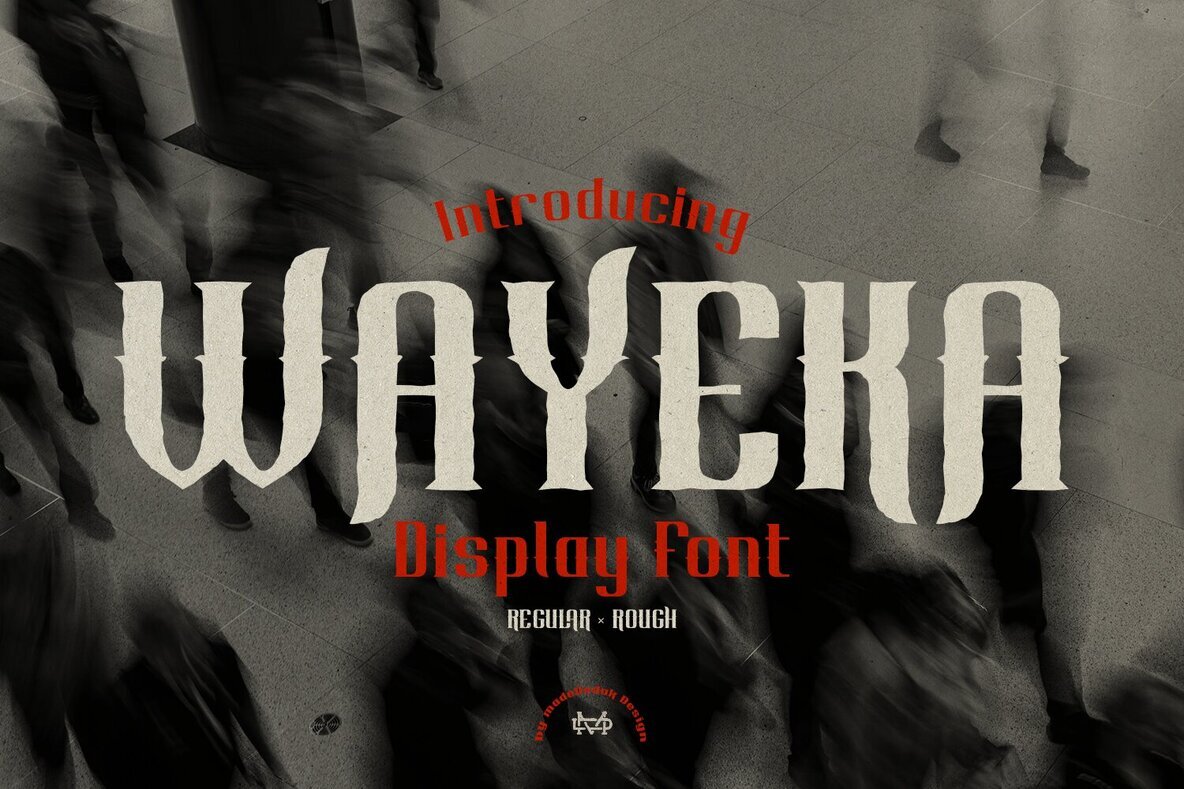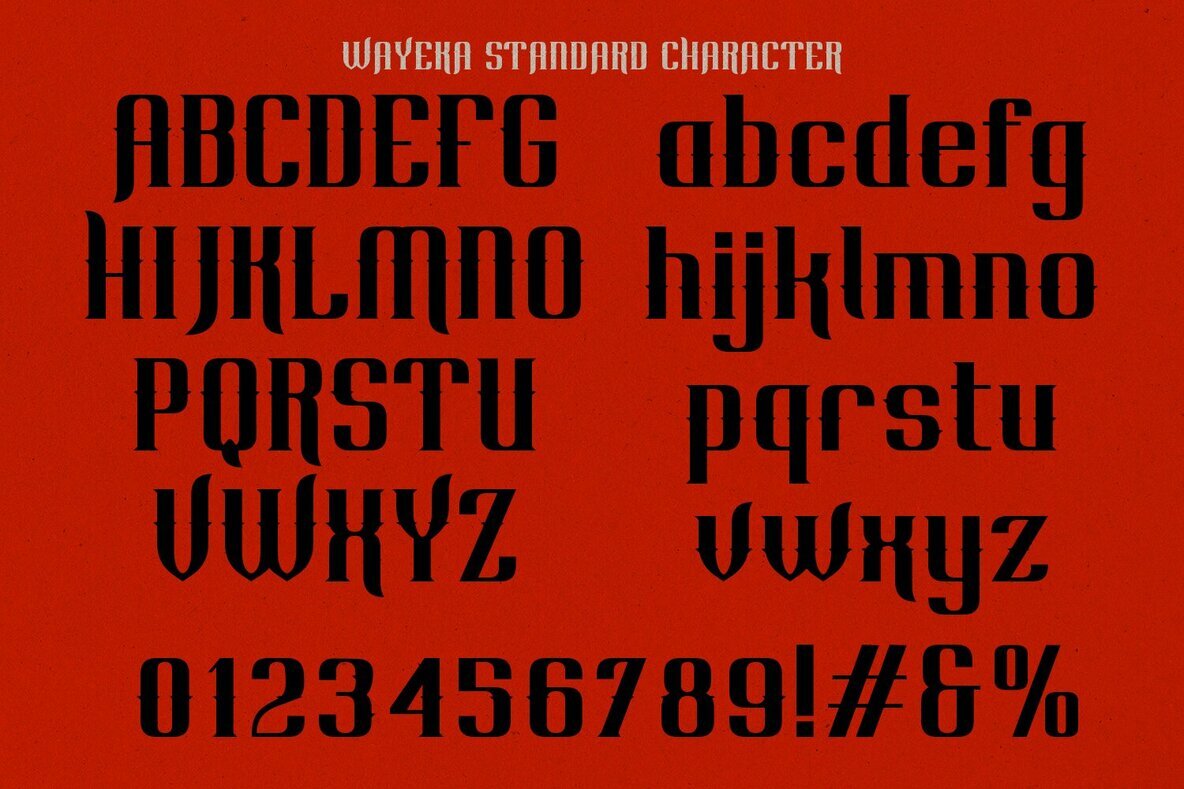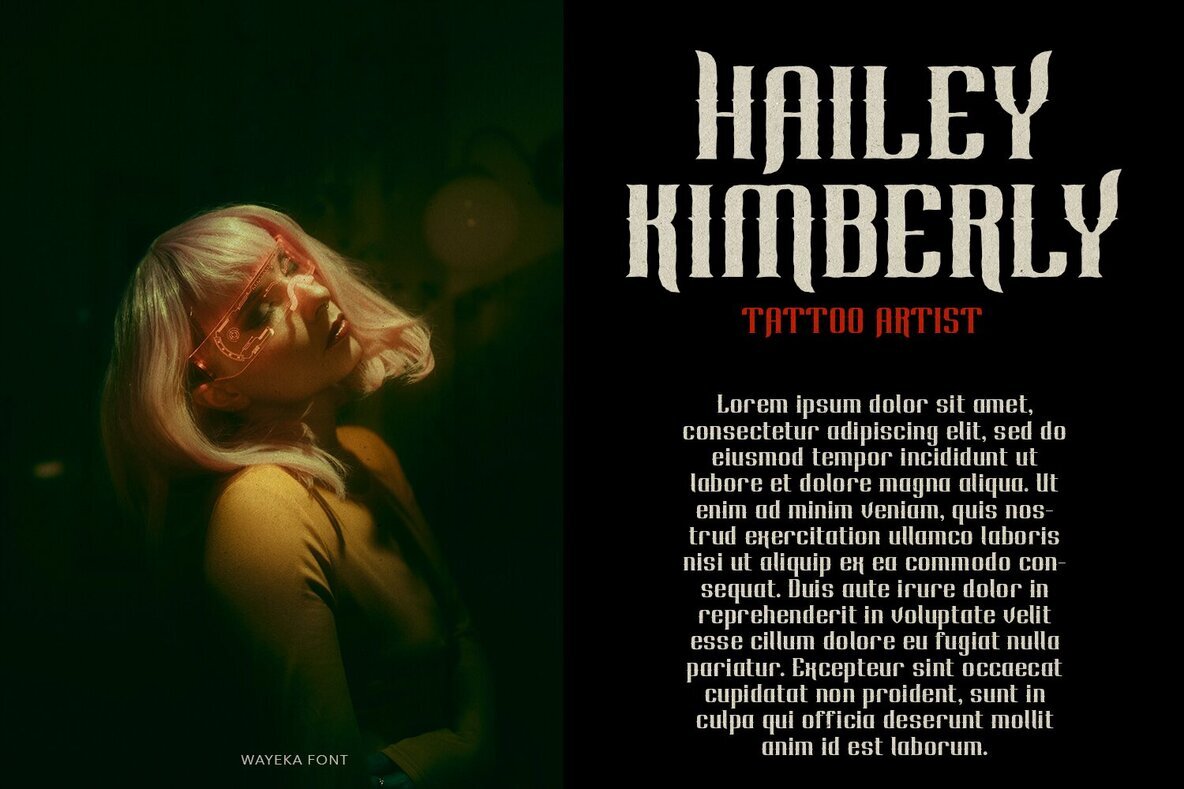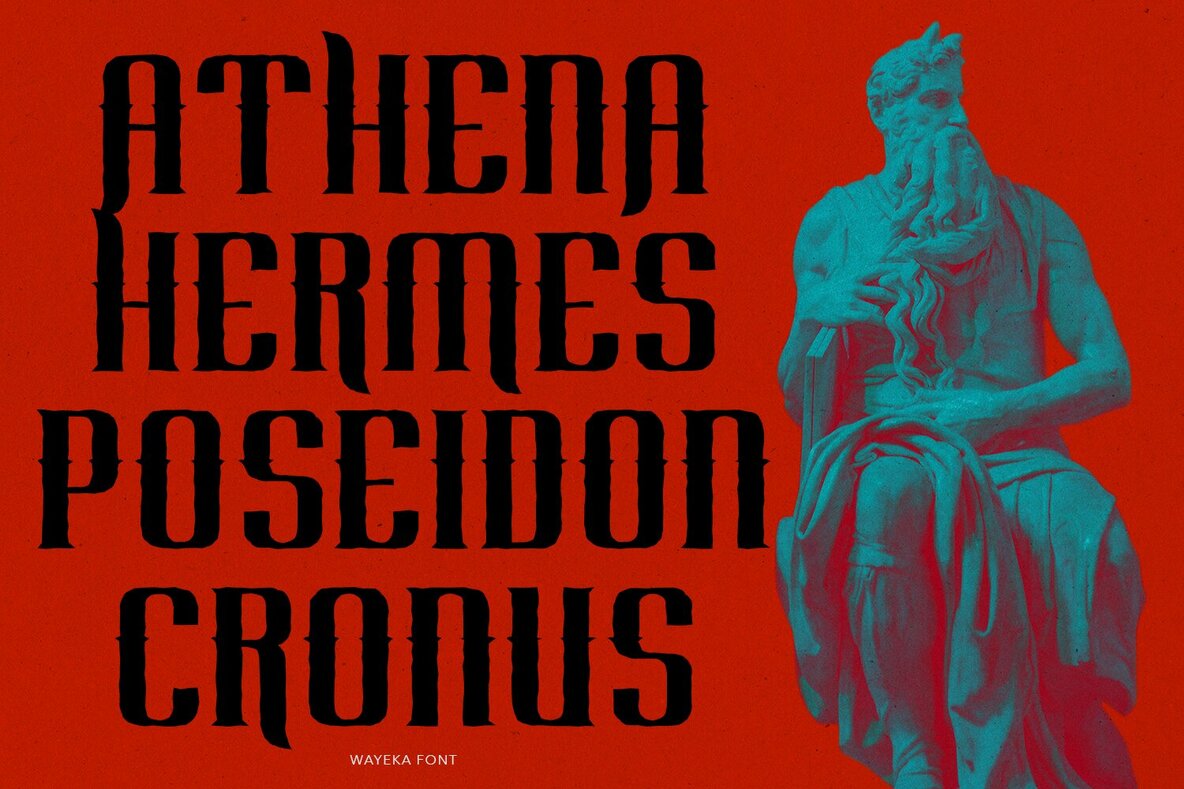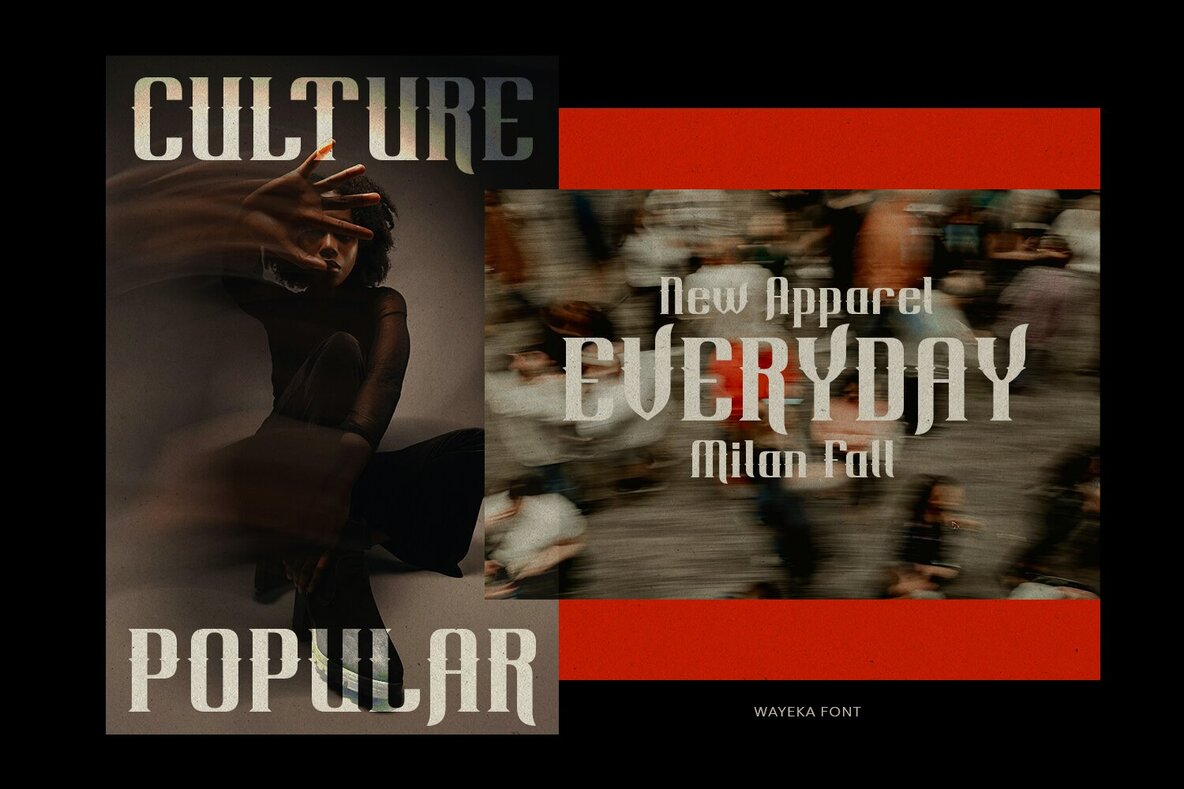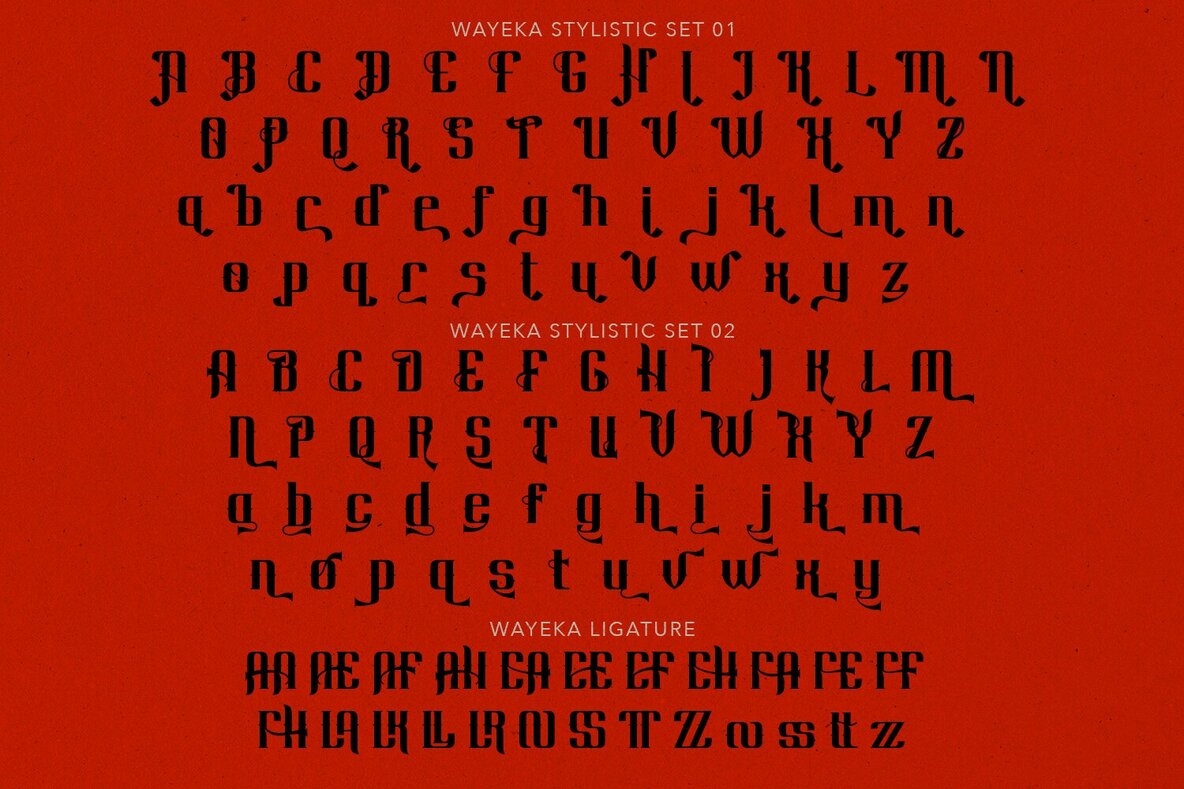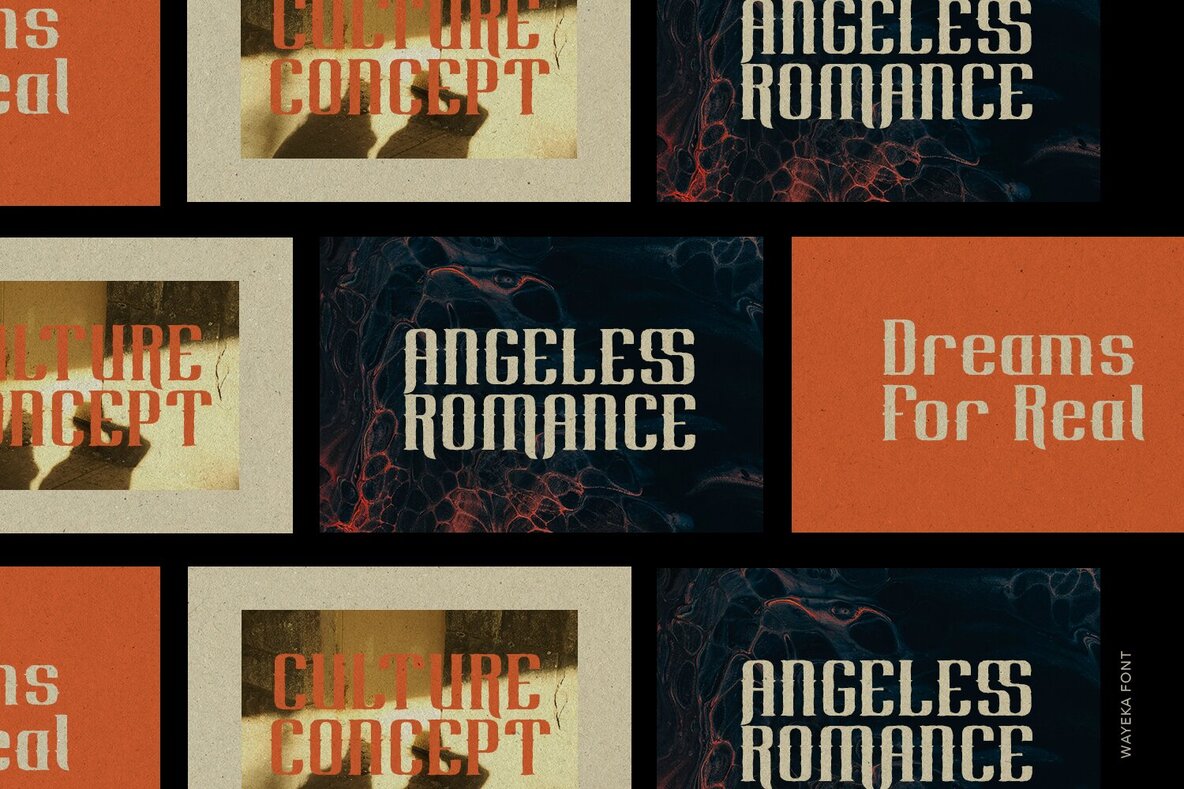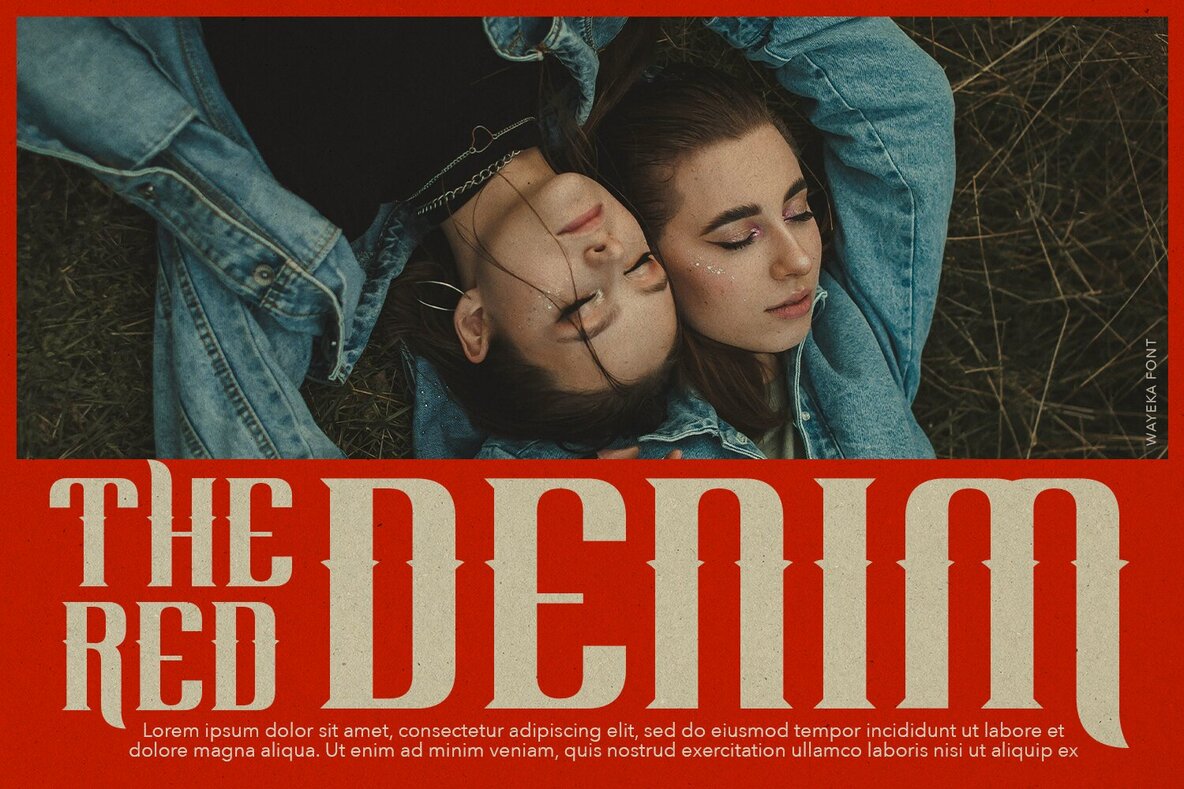
Wayeka Font
Wayeka is a dynamic display font crafted with a stylish and modern touch, offering an array of creative possibilities for your design projects. This font boasts two distinct styles that can seamlessly enhance various design applications. Whether you are working on branding, product packaging, invitations, or promotional graphics, Wayeka's versatility ensures it complements your creative vision.
Ideal for adding flair to quotes, T-shirt designs, labels, posters, and logos, Wayeka stands out with its sleek and polished look. Its alternative letterforms provide unique options to give your projects a distinctive edge. Embrace Wayeka to transform your creative endeavors with its bold and elegant appeal.